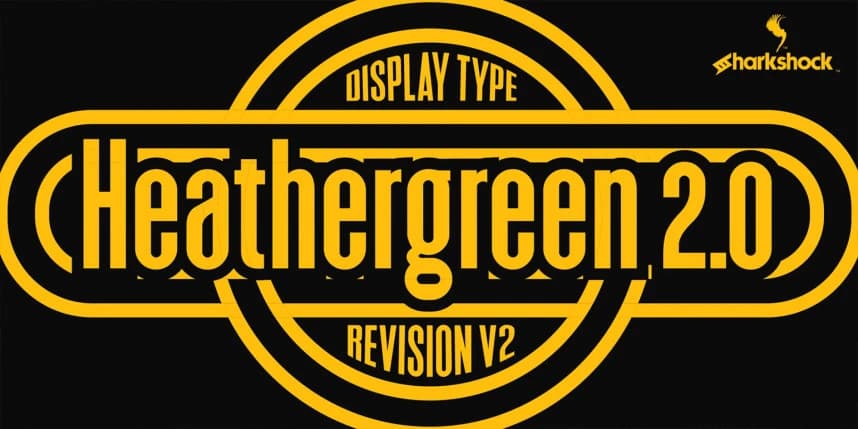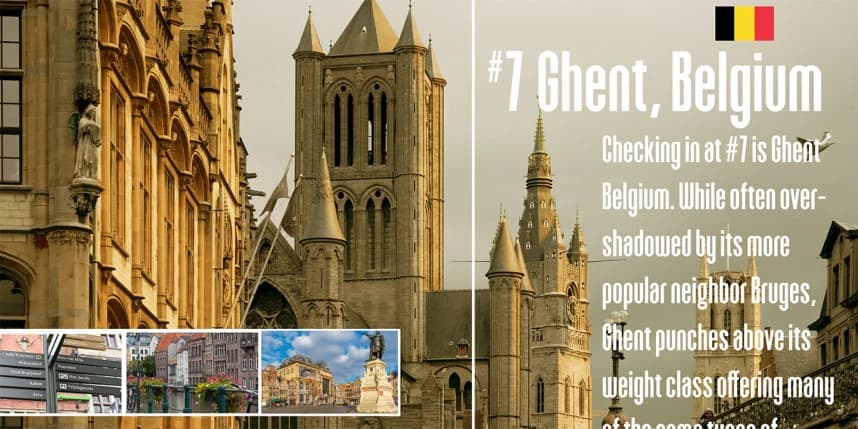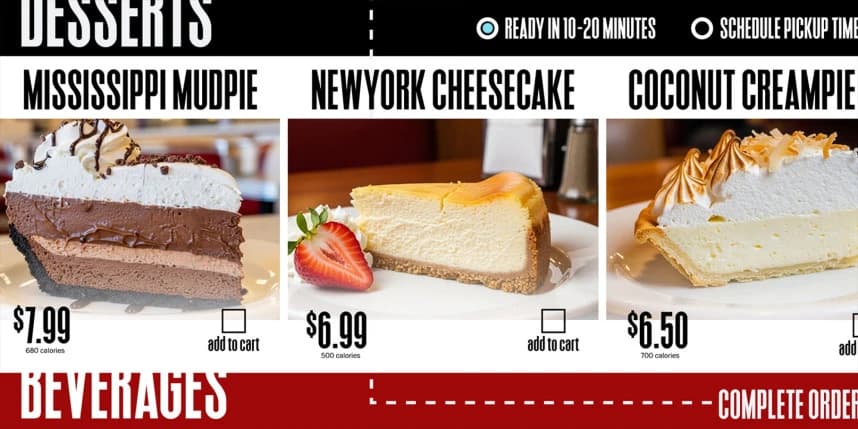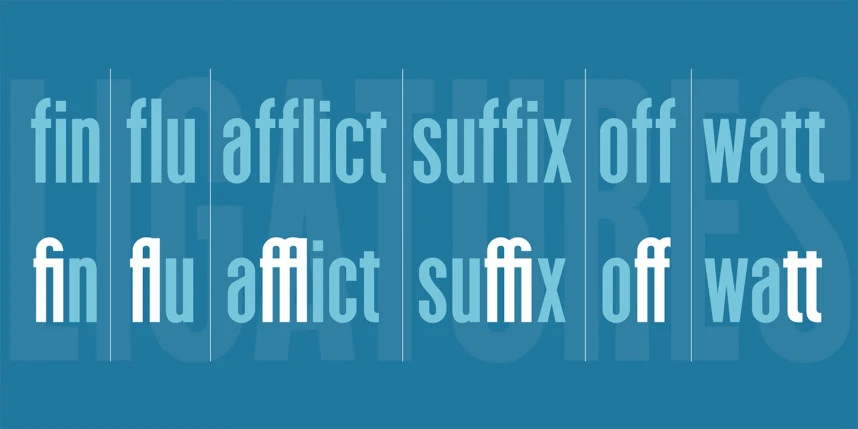
Heathergreen 2.0 Font
Heathergreen 2.0 Font is a tightly spaced display sans that returns for a facelift. A close relative of the Deutschlander family, the 2.0 update was designed to squeeze in text where space was limited.